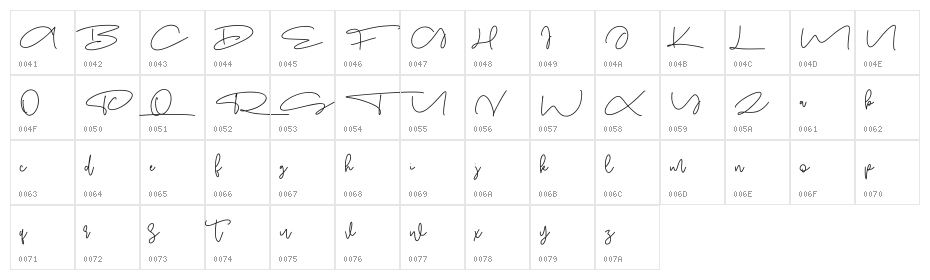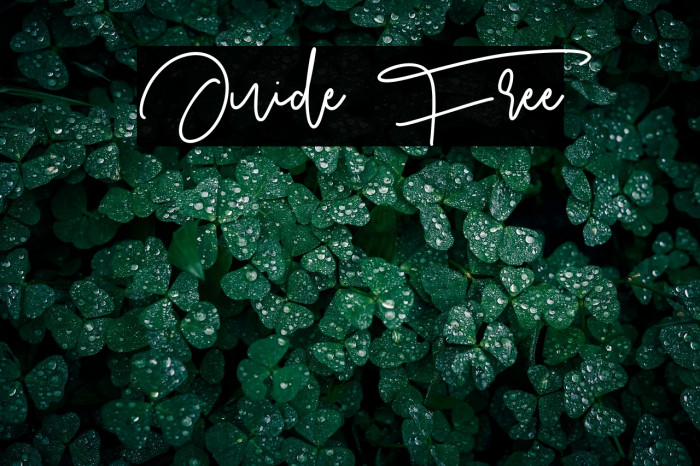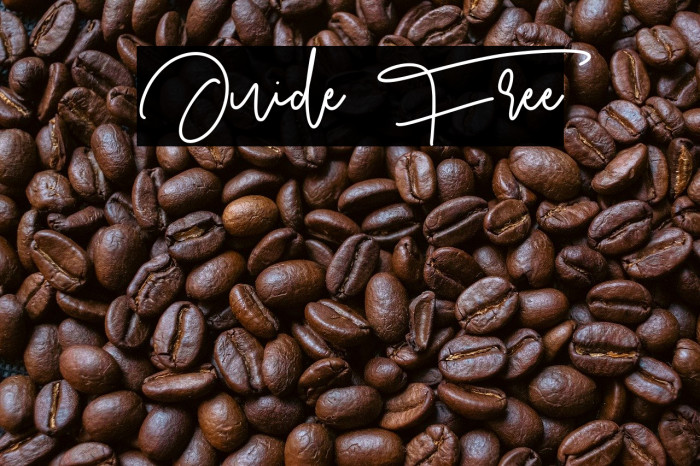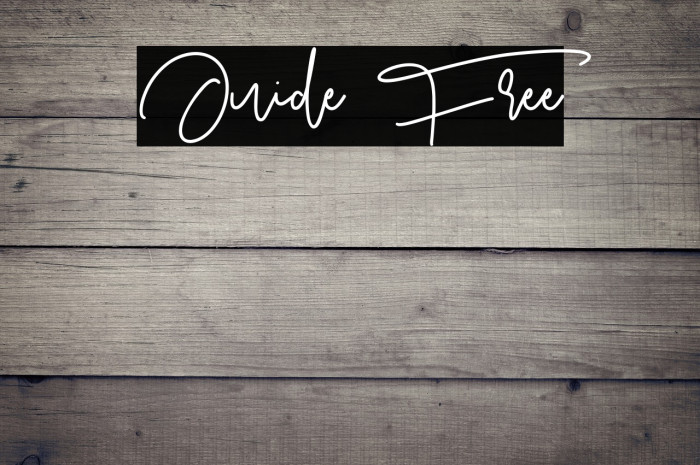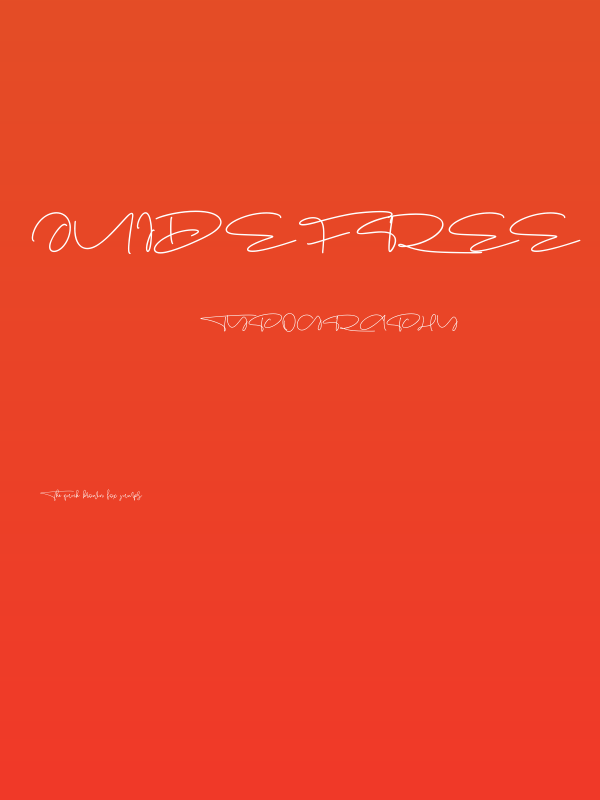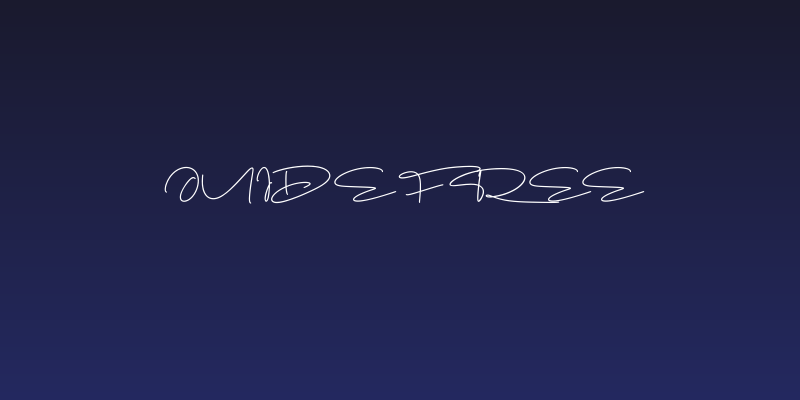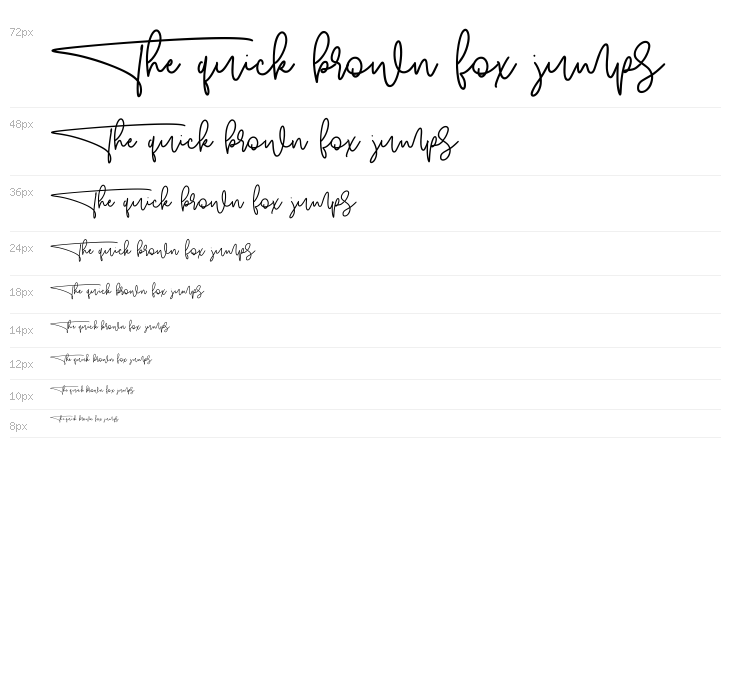
Juide Free Font
Juide Free Description
This font exhibits a fluid and elegant script style, characterized by its smooth, flowing lines and cursive nature. The uppercase letters are particularly elongated and connected, giving a sense of continuity and grace. The lowercase letters maintain a consistent style, with gentle curves and loops that enhance its handwritten appearance. The overall design is sophisticated, making it suitable for projects that require a personal touch or a sense of elegance. The font's delicate strokes and balanced proportions contribute to its readability, despite its decorative nature.
| Overall Style | Elegant |
| Use Case | Logos, Invitations, Personal Branding |
| Proposed Projects | Ideal for wedding invitations, greeting cards, personal branding, and elegant packaging designs. |